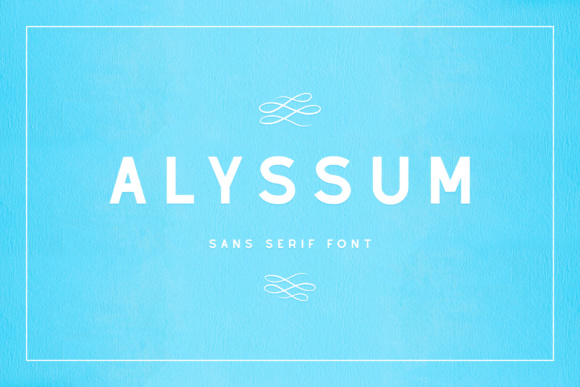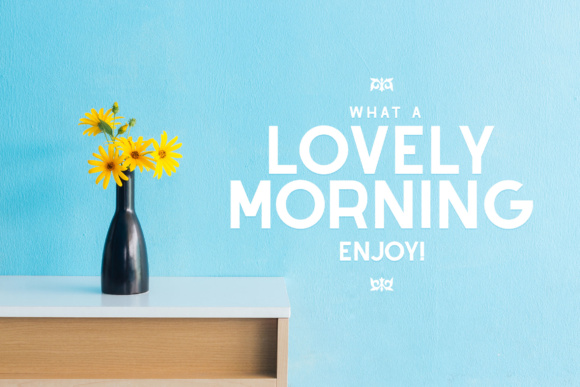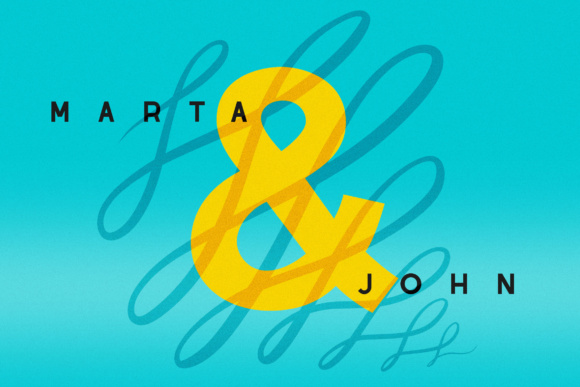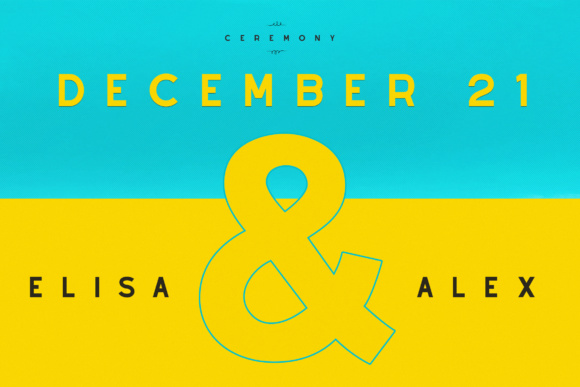
Alyssum Font: Elegant Sans Serif for Minimalist Logo Design
About the Alyssum Font
Unleash your creativity with Alyssum Font, a versatile font perfect for a wide range of applications. Alyssum is a beautiful delicate sans serif font that looks great for different styles and moods, from wedding to logos. It also looks great with wide-set spacing characters!
Alyssum’s delicate nature makes it ideal for branding projects requiring a touch of elegance, particularly logos, short headlines, and invitations. Its wide-set spacing enhances readability in smaller sizes, making it suitable for packaging design where concise text is key. However, it’s less effective for body text or UI elements due to its limited x-height and potential for reduced legibility in longer passages.
Pair Alyssum with a contrasting serif font like Garamond for a classic, sophisticated feel, or a geometric sans-serif such as Futura for a modern, clean aesthetic. A playful script font like Pacifico could add a touch of whimsy to projects requiring a more approachable brand personality.
Alyssum projects an overall personality of refined elegance and understated sophistication. Its airy design makes it best suited for brands aiming for a delicate, premium image.
Alyssum Font Usage Examples
Alyssum Font Example